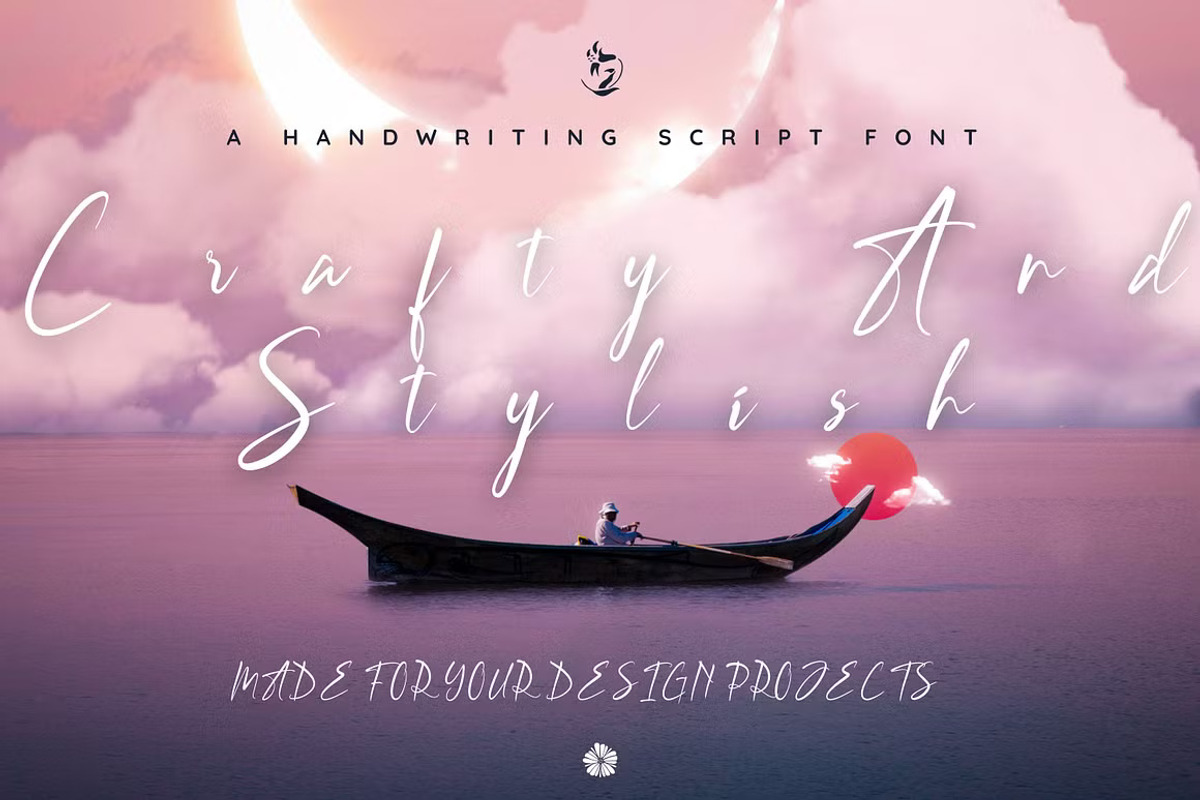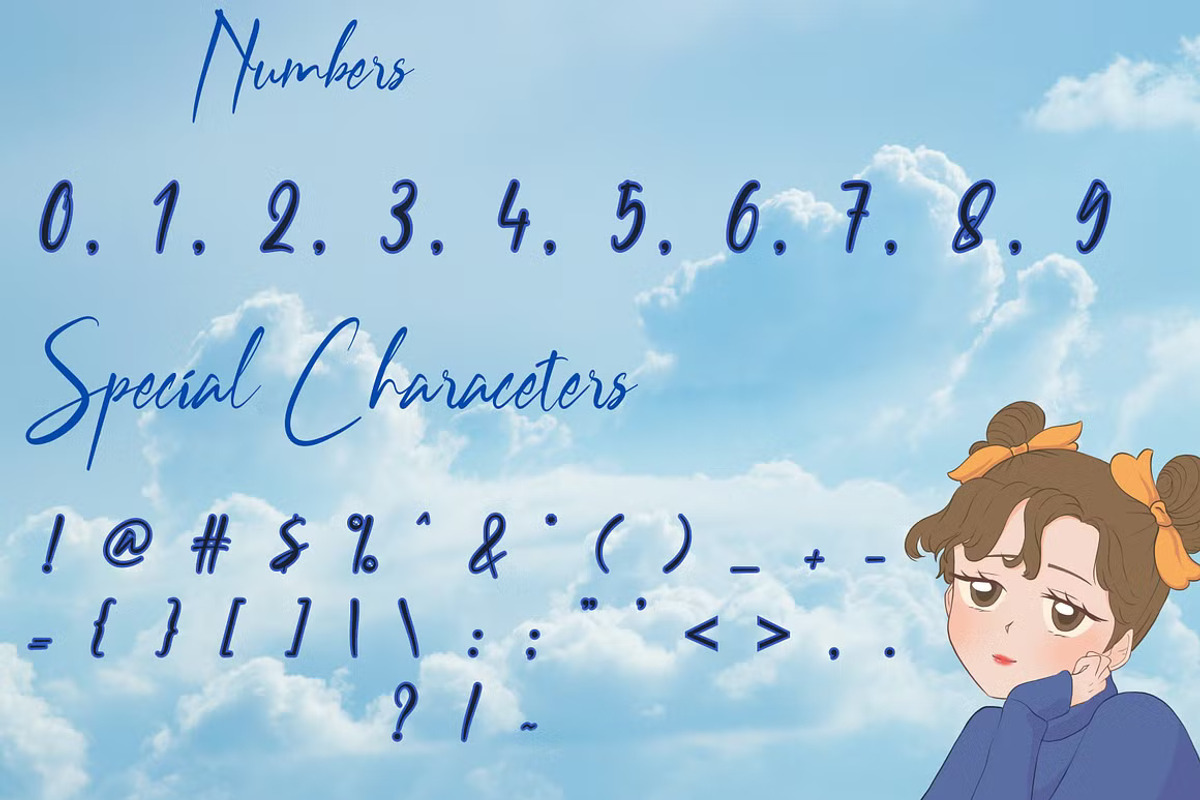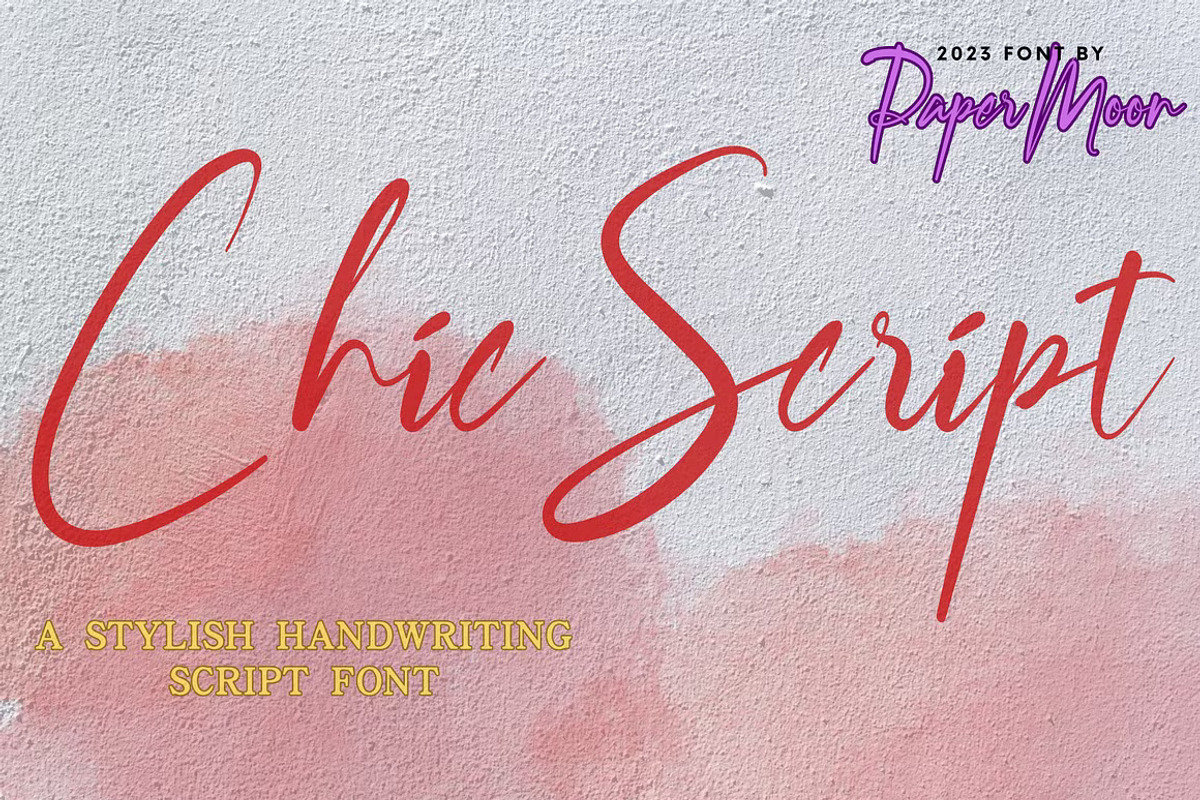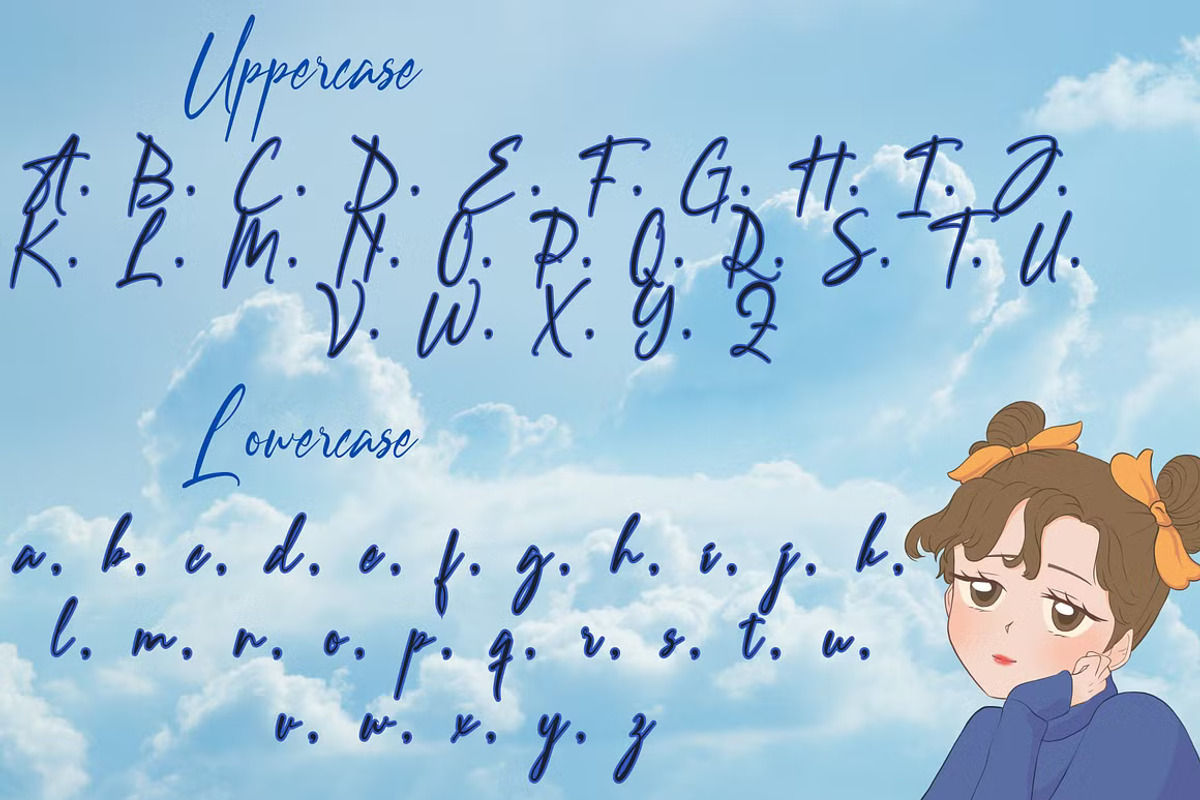
ChicScript Stylish Handwritten Font
Introducing ChicScript: The Elegant Handwritten Script Font with a Signature Touch
Crafted with precision by PaperMoon, ChicScript is an elegant handwritten script font that exudes style and sophistication. With its graceful, flowing lines, ChicScript adds a signature touch, making it the perfect choice for a variety of industries, including architecture, literature, cosmetics, crafts, homeware, publishing, salons & spas, and wedding organizing.
⦿ Key Features:
Complete Set of Characters: Includes both uppercase and lowercase basic characters for versatile use Numbers & Punctuation: Extensive selection of symbols for a wide range of applications Ligatures & Alternates: Enhance your typography with stylish variations Swoosh Elements: Add an extra flourish to your designs Meticulous Kerning: Well-spaced characters to ensure a polished and professional look ChicScript is designed to elevate your projects, making it ideal for business cards, bespoke designs, labels, product packaging, quotes, titles, and more. Its meticulously crafted characters and sophisticated style bring a refined touch to any project. To unlock the alternate glyphs, simply use design software that supports OpenType features, such as Adobe Illustrator CS or Adobe InDesign.